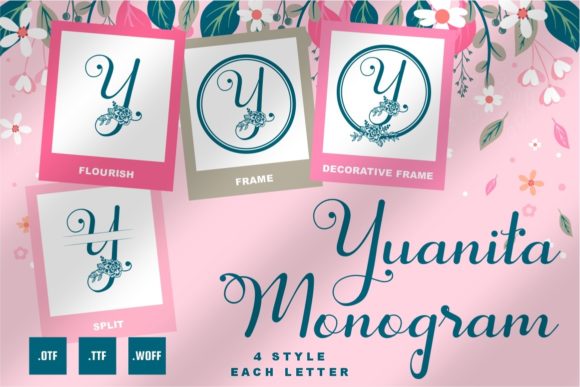
Journey to the world of exquisite visual expression with Yuanita Monogram, the decorative font that captivates hearts and commands attention. Putracetol, the ingenious font designer, has meticulously crafted this masterpiece, infusing it with breathtaking detail and finesse. Yuanita Monogram stands as an artistic treasure, ready to elevate your designs to unprecedented heights of elegance.
With its intricate swirls and delicate flourishes, Yuanita Monogram dances across your screen like a symphony of visual delight. Each character is a testament to the font's remarkable craftsmanship, beckoning you to explore its endless possibilities. Whether you're a seasoned designer or a creative explorer, Yuanita Monogram will ignite your imagination and unleash your artistic potential.
Step into a realm where creativity knows no bounds, where Yuanita Monogram awaits to transform your visions into stunning realities. Its decorative charm adds a touch of sophistication to logos, branding material, invitations, and social media graphics, leaving a lasting impression on your audience. Dive into the world of Yuanita Monogram and discover a font that is both beautiful and practical, a true gem in the world of typography.
For those seeking a font that sparks conversation and ignites curiosity, Yuanita Monogram is your perfect companion. Its intricate details weave tales of elegance and charm, inviting your audience to delve deeper into your creative masterpiece. Experience the allure of Yuanita Monogram and watch as your designs blossom into works of art.
Embrace the beauty of Yuanita Monogram, the decorative font that captivates hearts and elevates your designs to new heights of sophistication. Let your creativity soar and embark on an artistic journey unlike any other. Unleash the power of Yuanita Monogram today and transform your creative dreams into breathtaking realities.